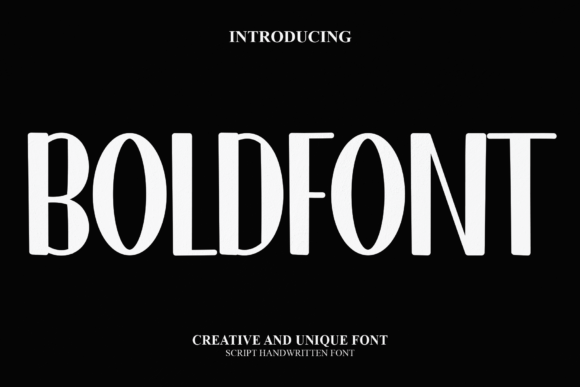
The Power of Bold Font: Elevate Your Designs with Confidence
I’ll never forget the time I was working on a wedding invitation project, and my client asked for a font that would make their special day feel like a luxury experience. I scoured the internet, tried out countless fonts, but nothing seemed to fit the bill. That was until I stumbled upon Bold Font – a game-changing, sans serif font that took my design from ordinary to extraordinary. In this article, I’ll share my love for Bold Font, its features, and how to make the most of it in your designs.
An Honest Review of Bold Font
• ✨ Stunning sans serif design that’s perfect for making a statement
• 💡 OpenType features that allow for creative experimentation
• 📸 Perfect for various design applications, from social media posts to product packaging
While Bold Font is an amazing addition to any design project, there are a few things to keep in mind:
• 🤔 Limited use in body text – Bold Font is best used for headings or titles, as it can be overwhelming for longer blocks of text
• ⚠️ Requires careful pairing with other fonts to maintain visual harmony
3. Experiment with OpenType features like ligatures and stylistic alternates to add visual interest
The Story Behind Bold Font
Bold Font was designed with the goal of creating a versatile, attention-grabbing sans serif font that would cater to the needs of designers and crafters. Inspired by modern typography trends and a passion for creative expression, Bold Font is the perfect addition to any design project that requires a bold statement.
A: Bold Font is perfect for designs that require a bold, eye-catching typography, such as wall hangings, wedding invitations, social media post logos, advertising, product packaging, and more.
A: While Bold Font is amazing for headings and titles, it’s not ideal for body text. Its bold design can be overwhelming for longer blocks of text.
A: Absolutely! Bold Font is optimized for both print and digital use, making it perfect for a wide range of design applications.